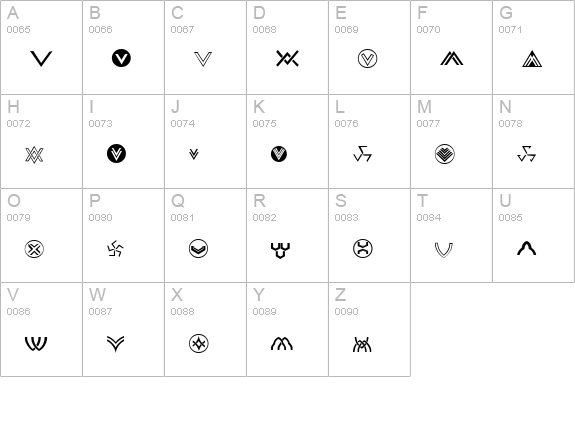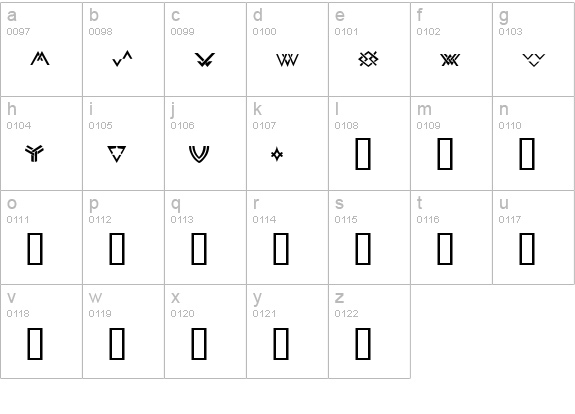
Chevron Dingbats Font Details
Chevron Dingbats font is a whimsical and unique typeface that is perfect for adding a touch of fun to your designs. This font features a collection of chevron-inspired symbols and shapes that can be used to create eye-catching graphics, patterns, and illustrations. What makes Chevron Dingbats font even more appealing is that it is available for free download at FontsMarket.com. This means that you can easily access this charming font and incorporate it into your projects without any additional cost. Whether you're designing a poster, invitation, or social media graphic, Chevron Dingbats font is sure to bring a playful and creative element to your work. With its delightful chevron motifs and free availability, Chevron Dingbats font is a must-have addition to any designer's toolkit. Download it today and start adding a touch of whimsy to your designs!